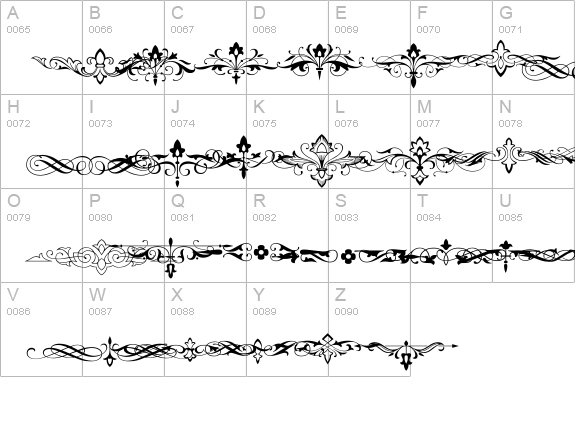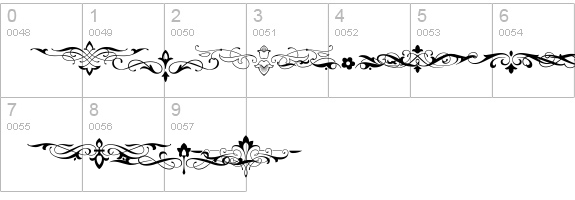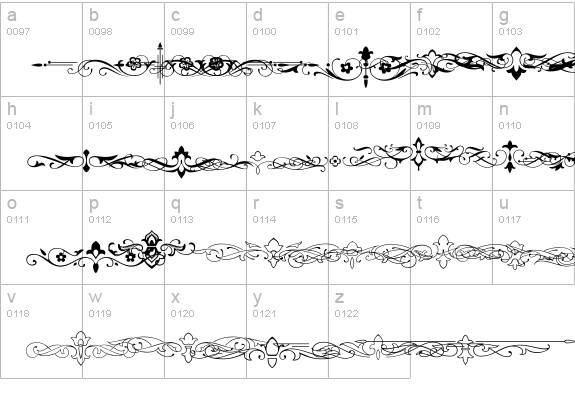
NatVignetteTwo Font Details
NatVignetteTwo font is a captivating and elegant typeface that strikes the perfect balance between sophistication and creativity. With its intricate design and delicate details, this font is sure to add a touch of charm to any project. The unique vignette elements give NatVignetteTwo font a timeless and classic look, making it ideal for a variety of design applications. What makes NatVignetteTwo font even more appealing is that it is available for free download at FontsMarket.com. This means that you can easily access this stunning font and incorporate it into your designs without any cost. Whether you're working on a branding project, website design, or any other creative endeavor, NatVignetteTwo font is a versatile option that will help you stand out from the crowd. Don't miss out on the opportunity to enhance your designs with the beauty and elegance of NatVignetteTwo font. Download it for free today at FontsMarket.com and unleash your creativity with this stunning typeface.